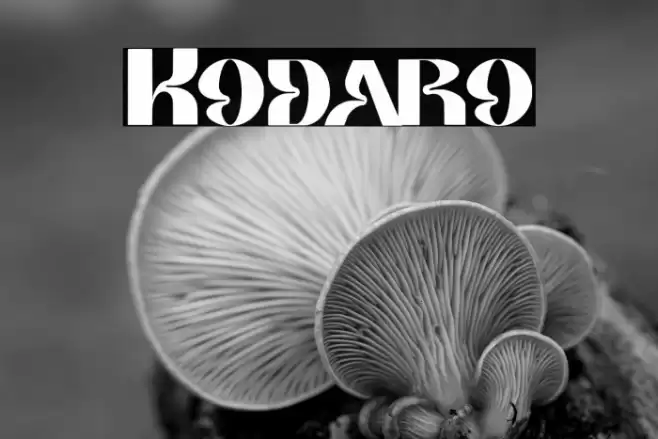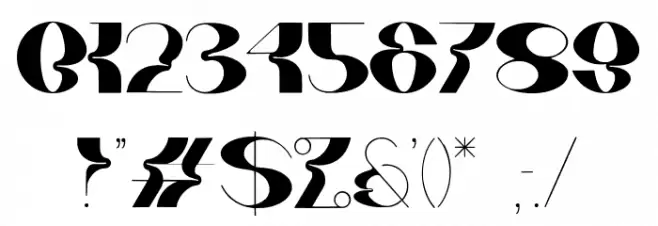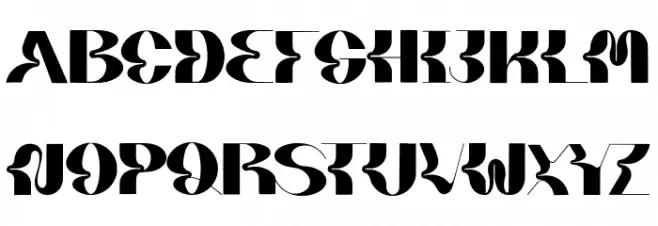
Kodaro Font
Kodaro Description
This font features a bold and striking design with a high contrast between thick and thin strokes. The characters are uniquely stylized with a modern, geometric flair, incorporating sharp angles and smooth curves. The uppercase and lowercase letters maintain a consistent aesthetic, while the numerals and special characters complement the overall style. The font's distinct appearance makes it ideal for attention-grabbing designs.
A bold, high-contrast font with a modern, geometric style from Uncategorized fonts.
- Font: Kodaro
- Proposed Projects: Ideal for branding, posters, headlines, and any project requiring a bold, modern look.
- Contrast: High